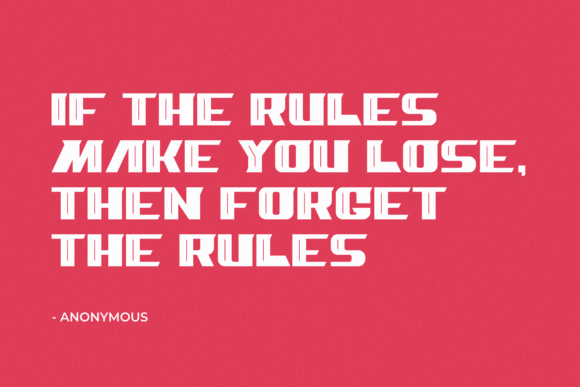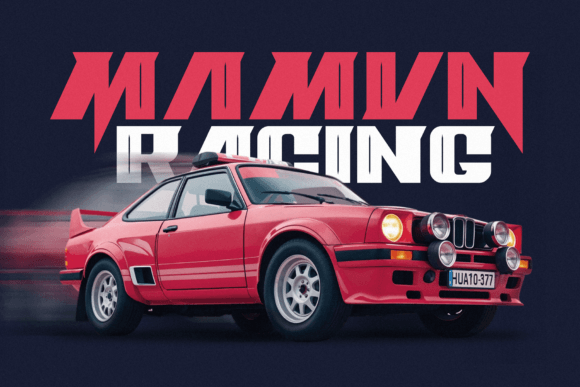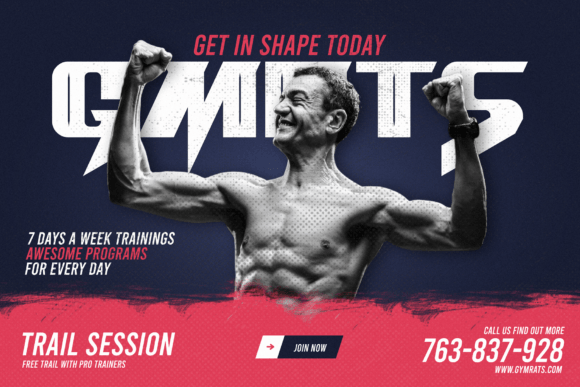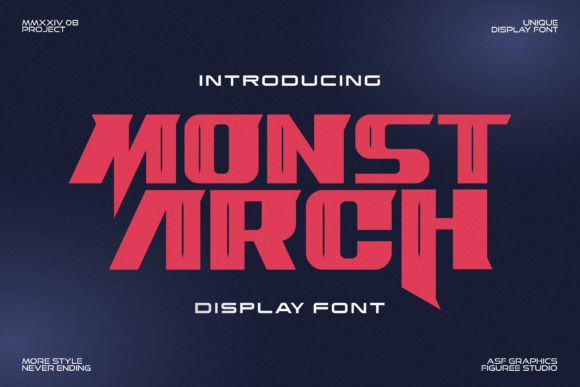
Introduction to Monstarch Font
Monstarch is a powerful bold display font designed to dominate the spotlight.
With its commanding presence and robust letterforms, Monstarch is perfect for making a statement in any design project .
Why Choose Monstarch Font?
Monstarch Font offers exceptional quality and versatility, making it a valuable addition to your design toolkit. Whether you’re creating for personal projects or commercial use, Monstarch Font delivers professional results.